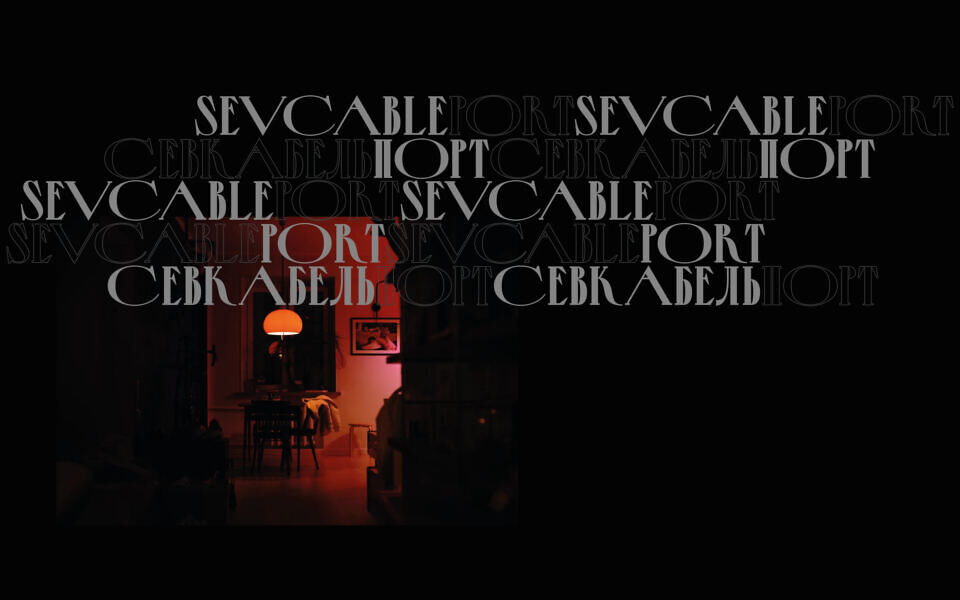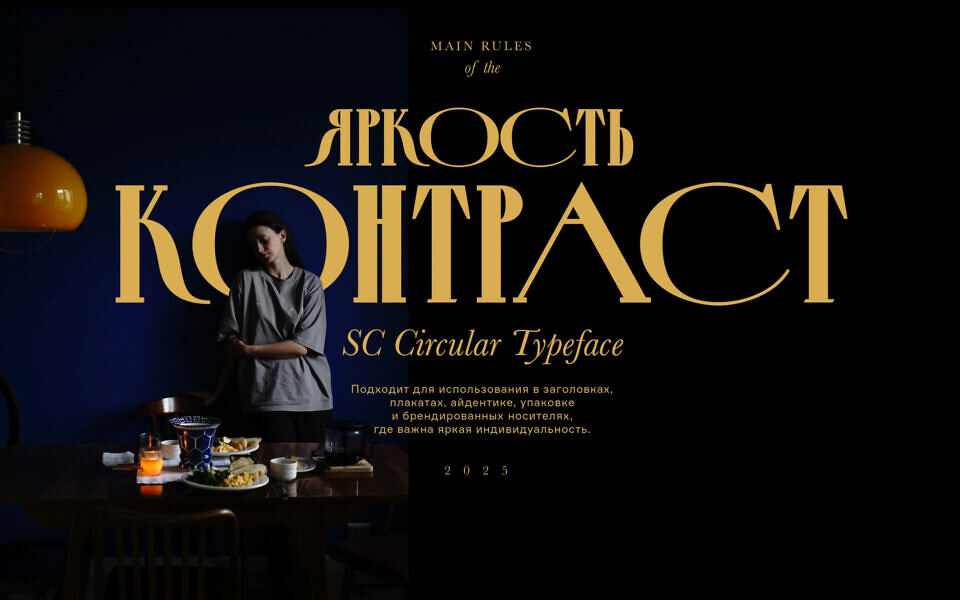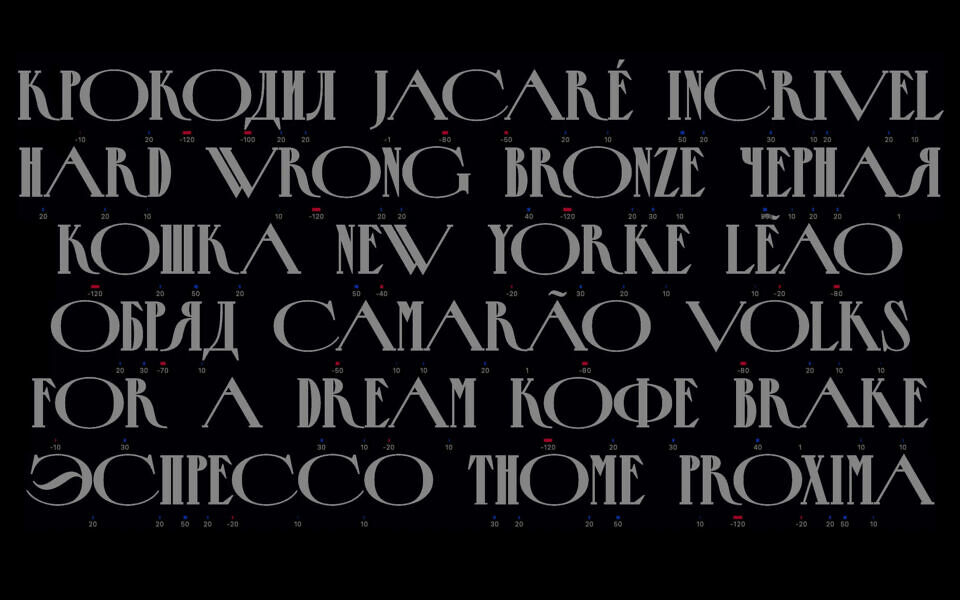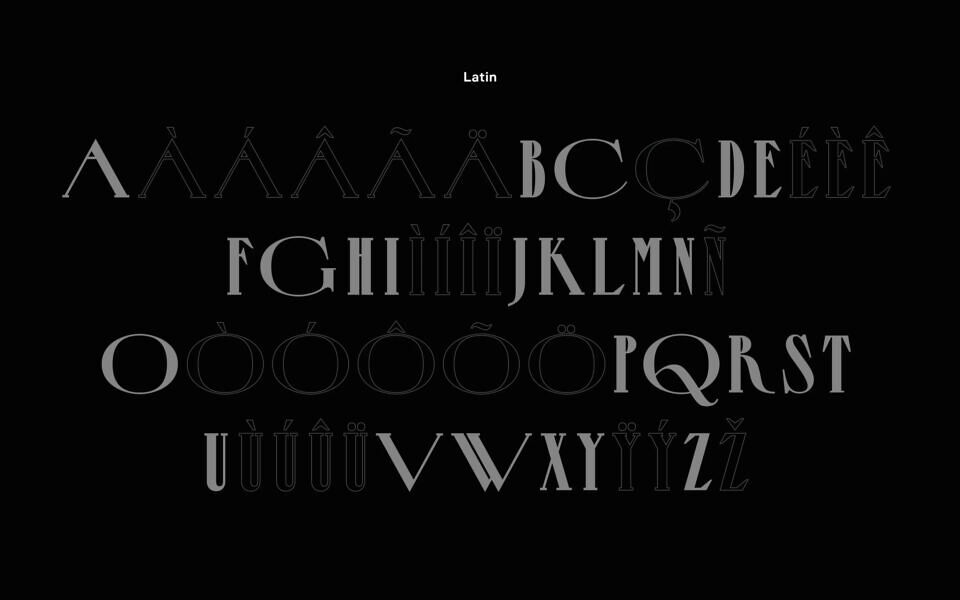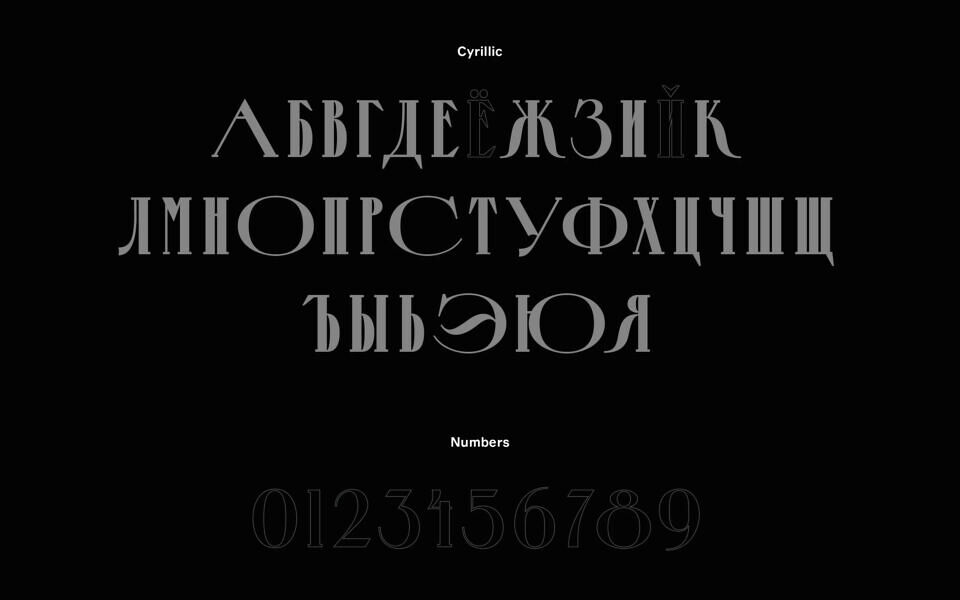
SC Circular Font
SC Circular Typeface by Stanislav Chiganov is a modern unicase font that blends Latin and Cyrillic characters into a cohesive, rounded system. Its soft geometric forms and consistent circular rhythm create a clean, contemporary aesthetic, ideal for branding and editorial use. The typeface balances simplicity with personality, offering smooth readability while maintaining a distinctive visual identity.
Designed by: Stanislav Chiganov